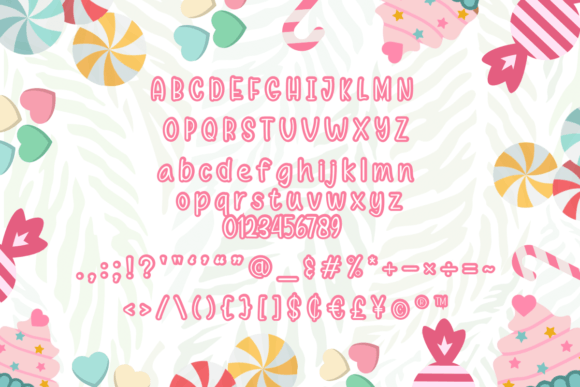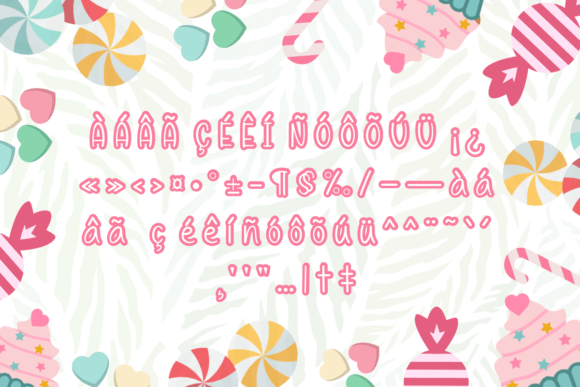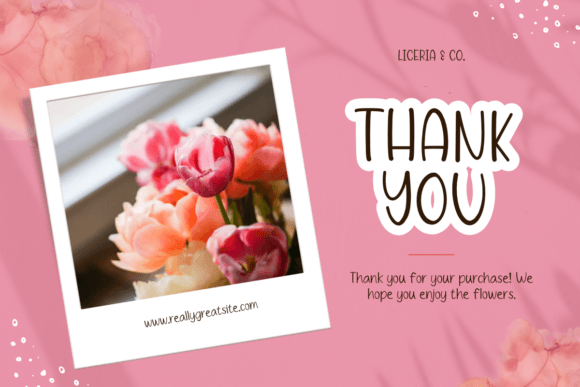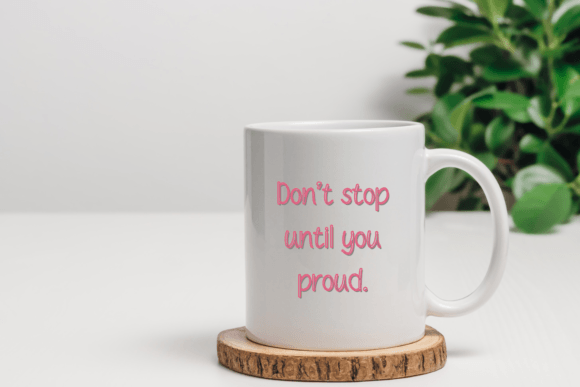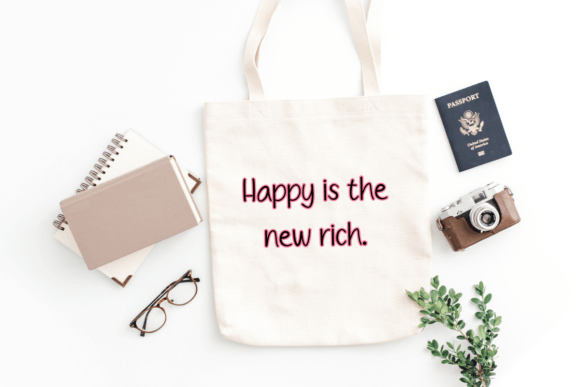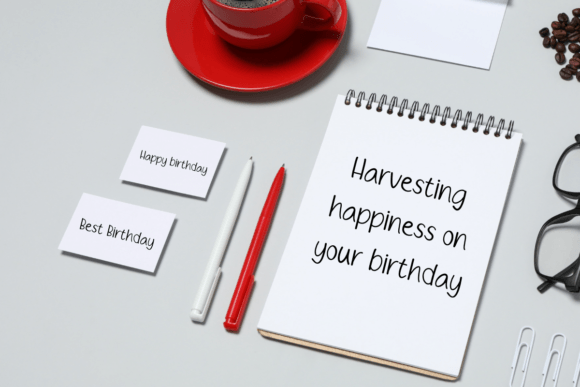
Candy Cane Font: A Sweet and Friendly Handwritten Font for Your Creative Projects
Are you looking for a font that can add a touch of sweetness and friendliness to your creative projects? Look no further than the Candy Cane font! This beautiful handwritten font is perfect for a variety of projects, from wedding invitations and DIY crafts to decorations, logos, and more.
What is Candy Cane Font?
Candy Cane is a sweet and friendly handwritten font that is sure to capture the hearts of designers and crafters alike. With its playful and whimsical feel, this font is perfect for adding a personal touch to your projects. Whether you’re creating a wedding invitation, a DIY craft, or a logo, Candy Cane font is sure to make your project stand out.
Features of Candy Cane Font
So, what makes Candy Cane font so special? Here are just a few of its features:
- Handwritten feel: Candy Cane font has a beautiful handwritten feel that is sure to add a personal touch to your projects.
- Sweet and friendly: This font has a sweet and friendly vibe that is perfect for projects that require a playful and whimsical feel.
- Versatile: Candy Cane font can be used for a variety of projects, from wedding invitations and DIY crafts to decorations, logos, and more.
- Easy to read: Despite its playful feel, Candy Cane font is easy to read, making it perfect for projects that require a clear and legible font.
Uses of Candy Cane Font
So, what can you use Candy Cane font for? The possibilities are endless! Here are just a few ideas:
- Wedding invitations: Add a touch of sweetness and romance to your wedding invitations with Candy Cane font.
- DIY crafts: Use Candy Cane font to add a personal touch to your DIY crafts, such as handmade cards, gift tags, and more.
- Decorations: Create beautiful decorations, such as garlands, banners, and signs, using Candy Cane font.
- Logos: Use Candy Cane font to create a unique and memorable logo for your business or brand.
- Social media graphics: Add a touch of personality to your social media graphics, such as Facebook posts, Instagram stories, and more.
Tips for Using Candy Cane Font
Here are a few tips for using Candy Cane font:
- Use it sparingly: While Candy Cane font is beautiful, it can be overwhelming if used too much. Use it sparingly to add a touch of sweetness to your projects.
- Pair it with other fonts: Candy Cane font pairs well with other fonts, such as serif and sans-serif fonts. Experiment with different font combinations to find the perfect look for your project.
- Experiment with colors: Candy Cane font looks beautiful in a variety of colors, from bright and bold to soft and pastel. Experiment with different colors to find the perfect look for your project.
In conclusion, Candy Cane font is a sweet and friendly handwritten font that is perfect for adding a personal touch to your creative projects. With its playful and whimsical feel, this font is sure to capture the hearts of designers and crafters alike. Whether you’re creating a wedding invitation, a DIY craft, or a logo, Candy Cane font is sure to make your project stand out.